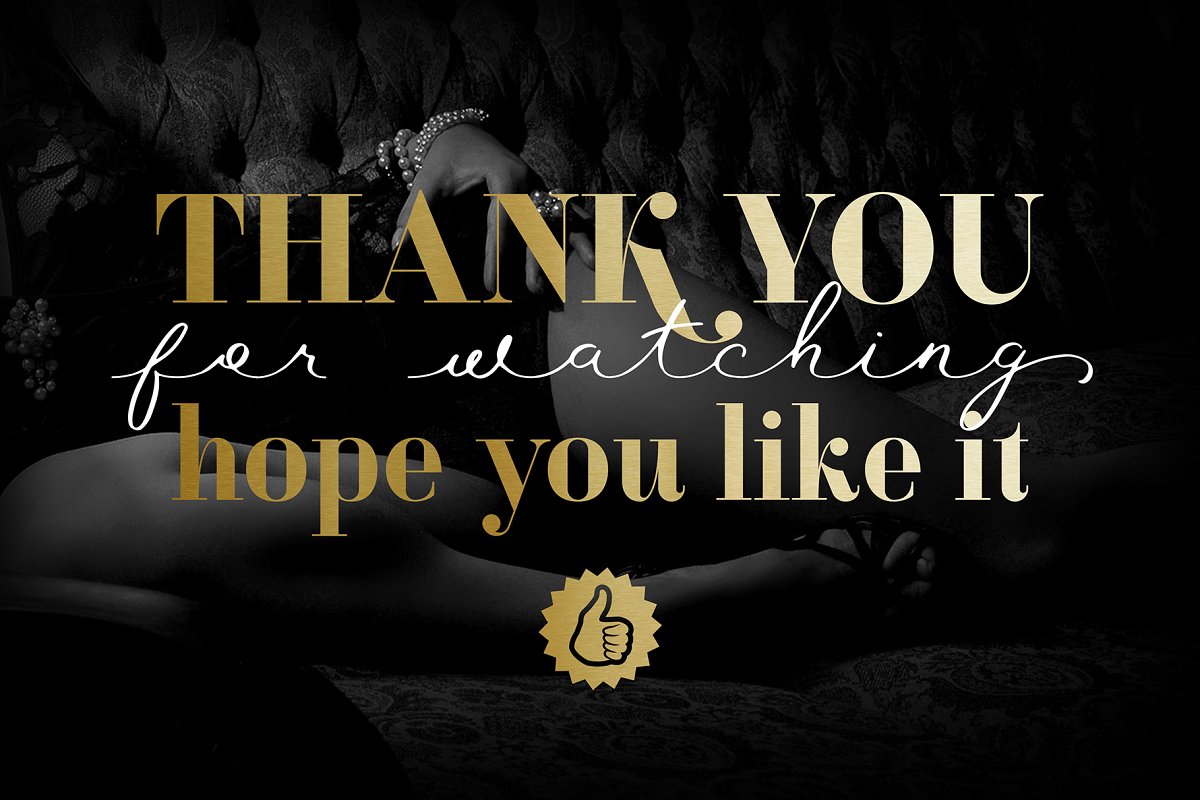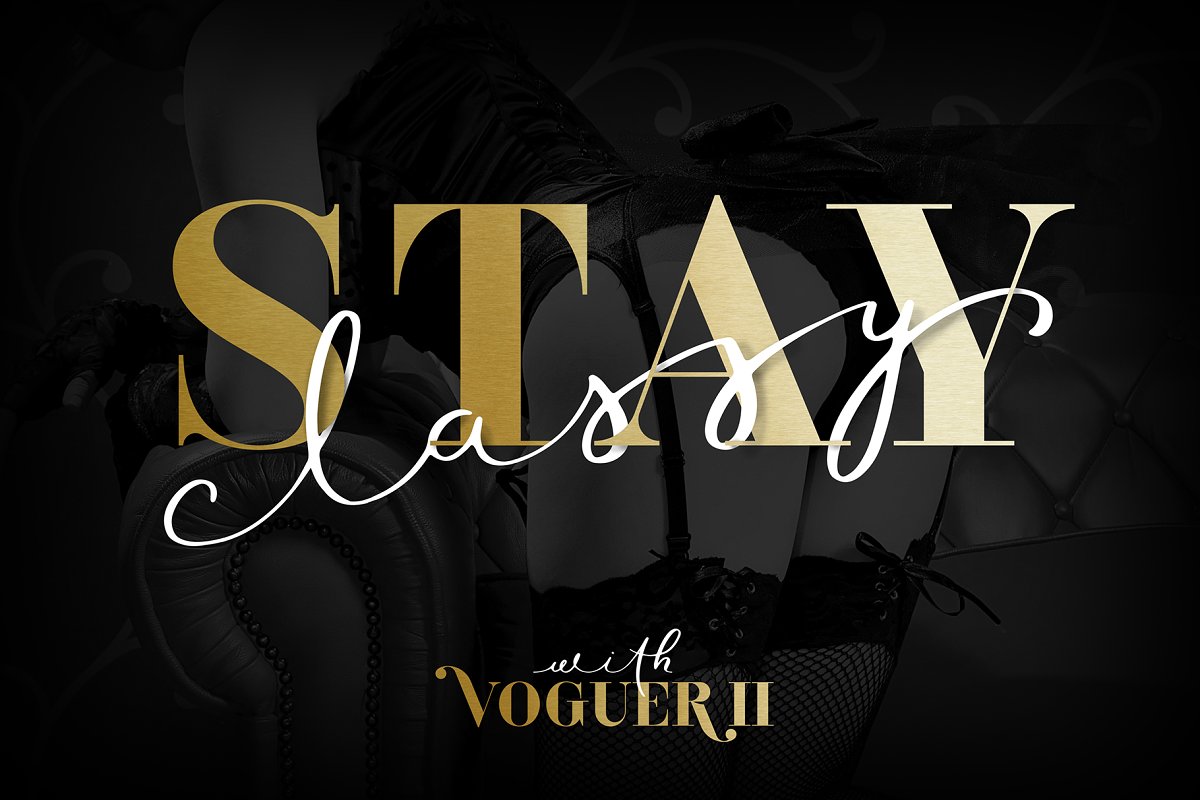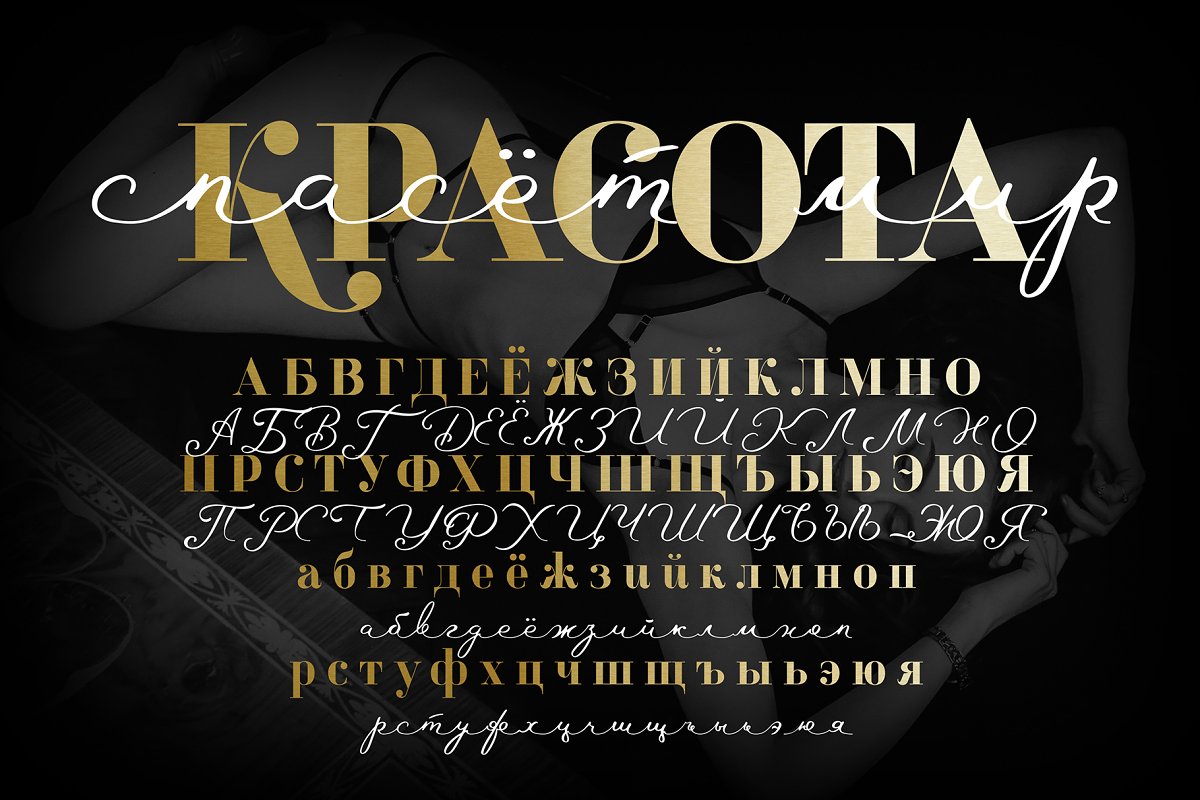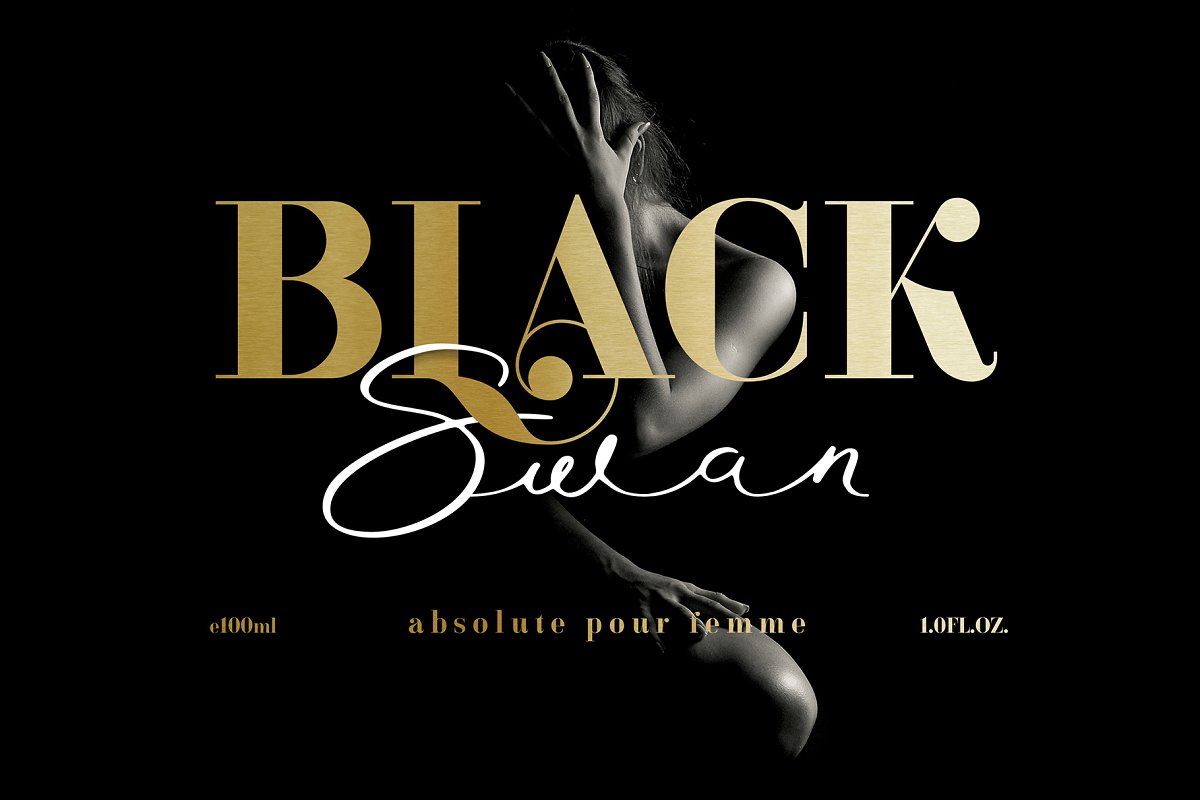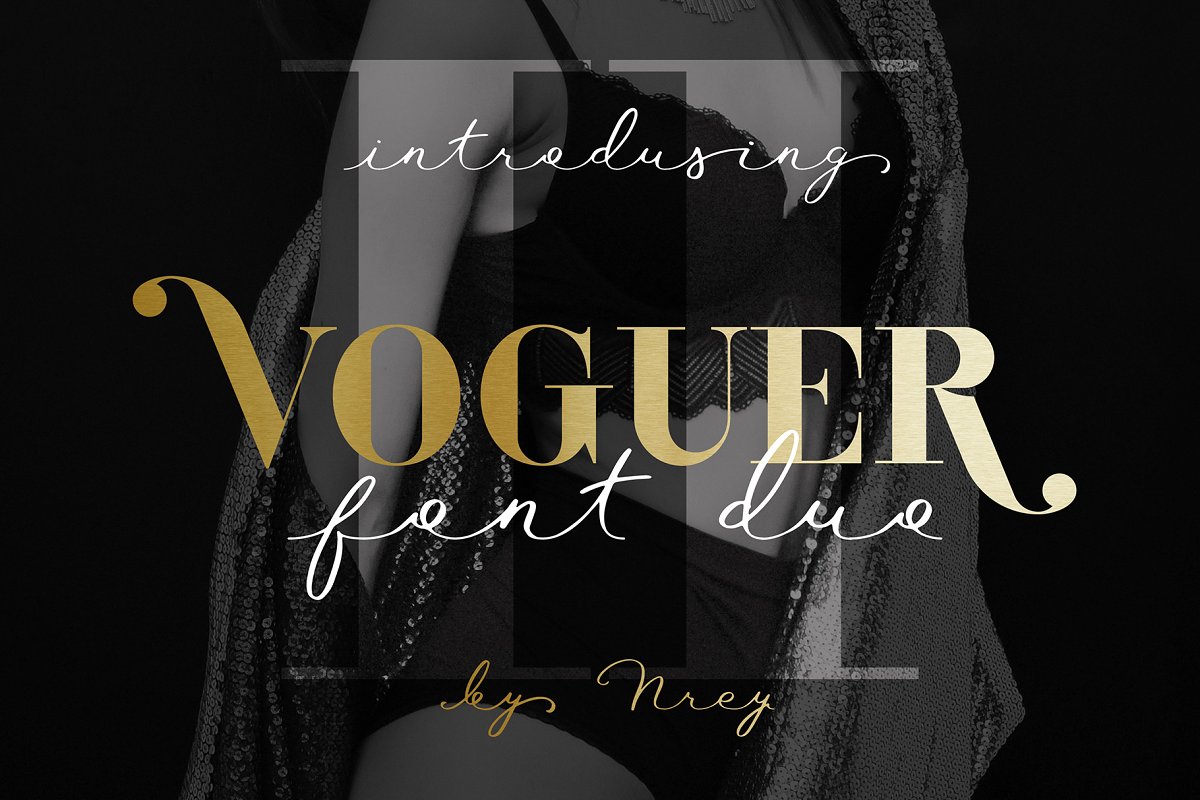
Voguer II Font Duo
This is a modern serif and script font with Gorgeous Textures that highlight the Beauty of each individual Letter. Introducing Voguer II Typeface. Voguer II designed and shared by Andriy Dykun. VOGUER II is an modern elegant high-contrast serif, inspired by the fashion glossy magazines typography and handwritten signature script. It perfectly represents modern & vintage esthetics. Both fonts includes multilingual support, alternate characters and beautiful ligatures. The font is perfect for wedding elegant invitation cards, beauty and fashion package design.